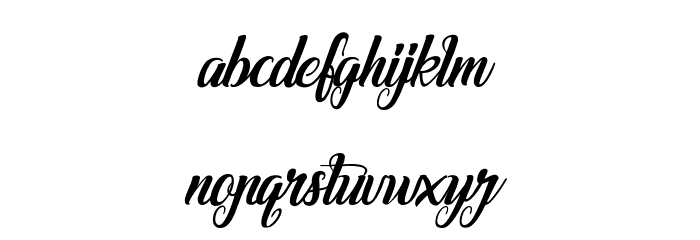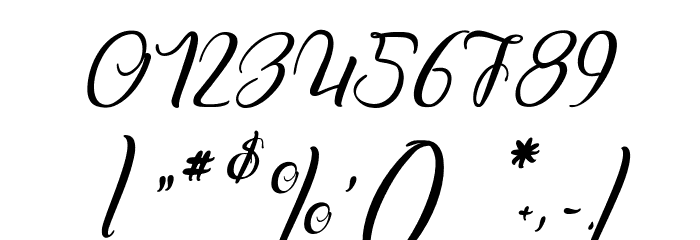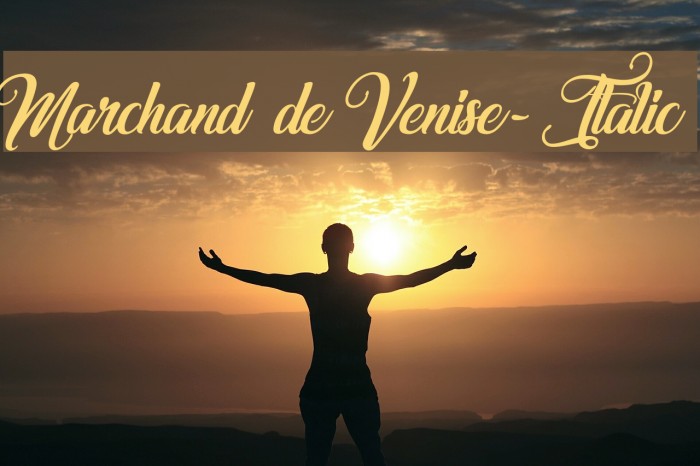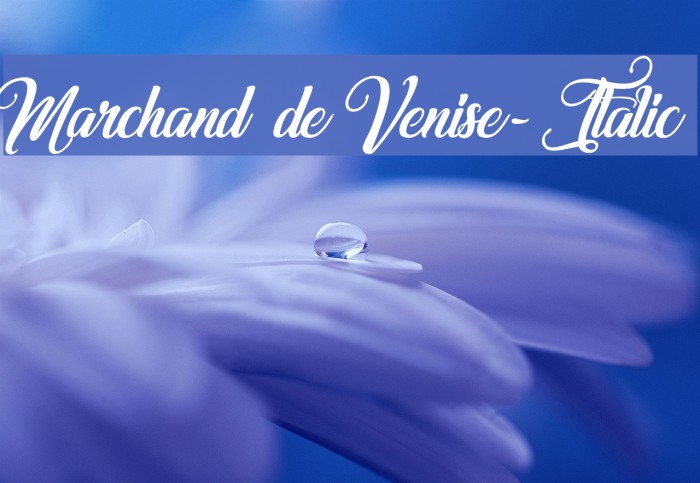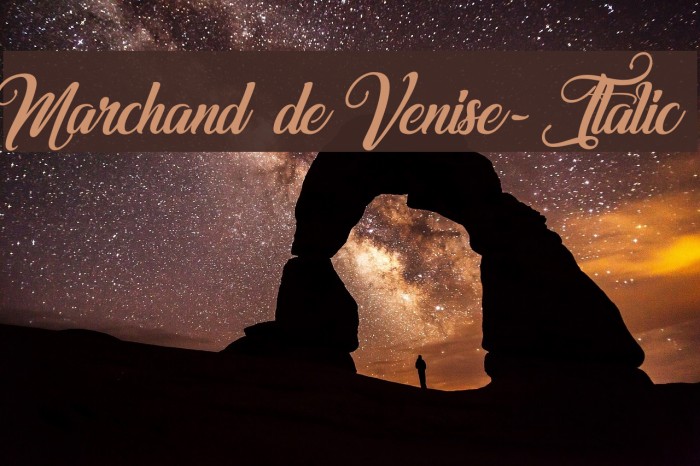
Marchand de Venise-Italic Font
This font features an elegant and flowing script style, characterized by its cursive and calligraphic elements. The uppercase letters are ornate with sweeping curves and flourishes, giving a sense of sophistication and grace. The lowercase letters maintain a consistent style, with smooth connections and a slightly slanted orientation, enhancing the fluidity of the text. The numerals are designed to complement the letters, with a similar level of detail and curvature. Special characters are included, maintaining the overall aesthetic with decorative touches. This font exudes a classic and timeless appeal, suitable for formal and decorative applications.
An elegant, flowing script font with ornate and calligraphic elements.
- Proposed Projects: Ideal for wedding invitations, luxury branding, greeting cards, and elegant signage.
- Category: Script
- Overall Style: Classic
- Use Case: Logos, Invitations, Decorative Text